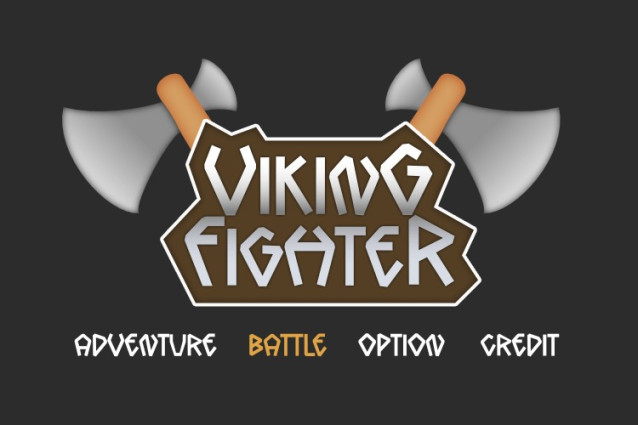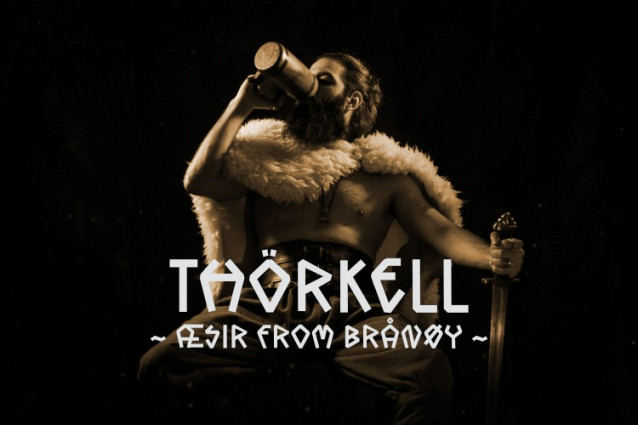
MGF Kronkeld Font
MGF Kronkeld Font is a rune-inspired display font that merges ancient Nordic mysticism with futuristic geometric design. Its angular shapes and cryptic feel make it a perfect choice for gaming, fantasy, posters, apparel, logos, and cinematic branding. Both mysterious and modern, Kronkeld gives your projects a bold, unforgettable identity.
Kronkeld is a Nordic rune-inspired typeface with a sharp geometric twist. It bridges ancient runic mystique with a modern futuristic aesthetic, creating a font that’s bold, cryptic, and highly versatile.
Style & Energy: Futuristic, cryptic, bold, and mysterious.
Market Vibe: Perfect for gaming titles, fantasy posters, metal bands, fashion branding, and cinematic graphics.
Letterform Structure: Angular runic-inspired shapes, sharp geometric cuts, modern minimalism.
Best Use Cases: Logos, video games, book covers, posters, apparel, album artwork, and tech branding.
Forge a bridge between the ancient Nordic spirit and the future of design with Kronkeld. Inspired by runes and sharpened with geometric precision, this font commands attention in every project from fantasy epics to futuristic tech branding.